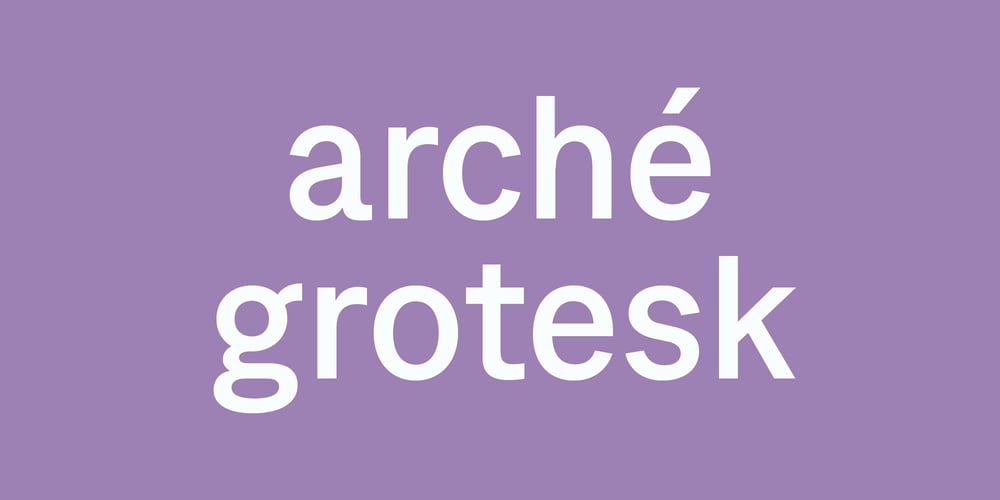
CF Arche Grotesk
CF Arche Grotesk font
CF Arche Grotesk Font Family was designed by Joaquín Contreras Soto and published by Contrafonts. CF Arche Grotesk contains 10 styles and family package options. Without serifs and without exaggeration. A project that seeks simplicity, with focus on reading and coverage in many languages.Arche has 5 weights and its italics. 10 fonts ranging from Light to Black. It also has a set of styles, old and modern numbers, arrows and ornaments.Excellent alternative to standards such as Akzidenz Grotesk or Helvetica, with a contemporary look, focus on legibility and with Latin American freshness.For more information visit our website Contrafonts.cl